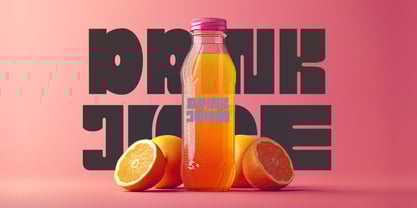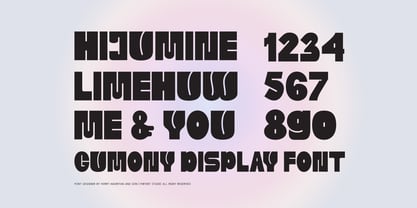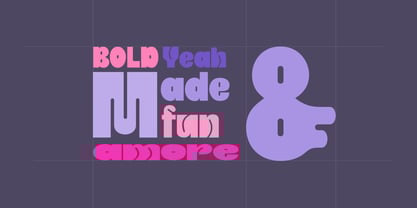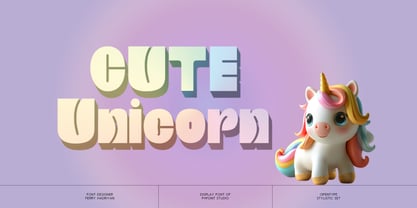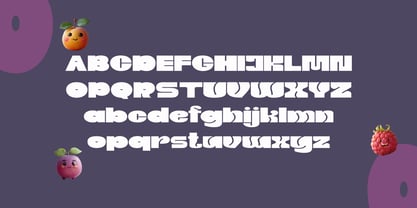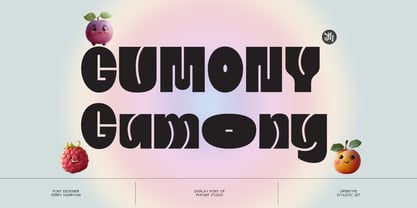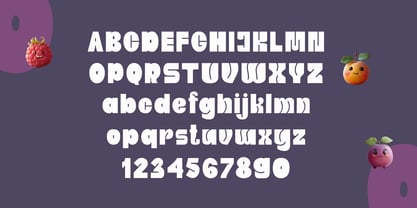
FH Gumony
by FHFont
The FH Gumony Font Family was designed by Ferry Hadriyan and published by FHFont. FH Gumony contains 1 styles. More about this family
Gumony is a display font with a fun, black, and wide style and stylistic swashes on the OpenType feature included in the font.